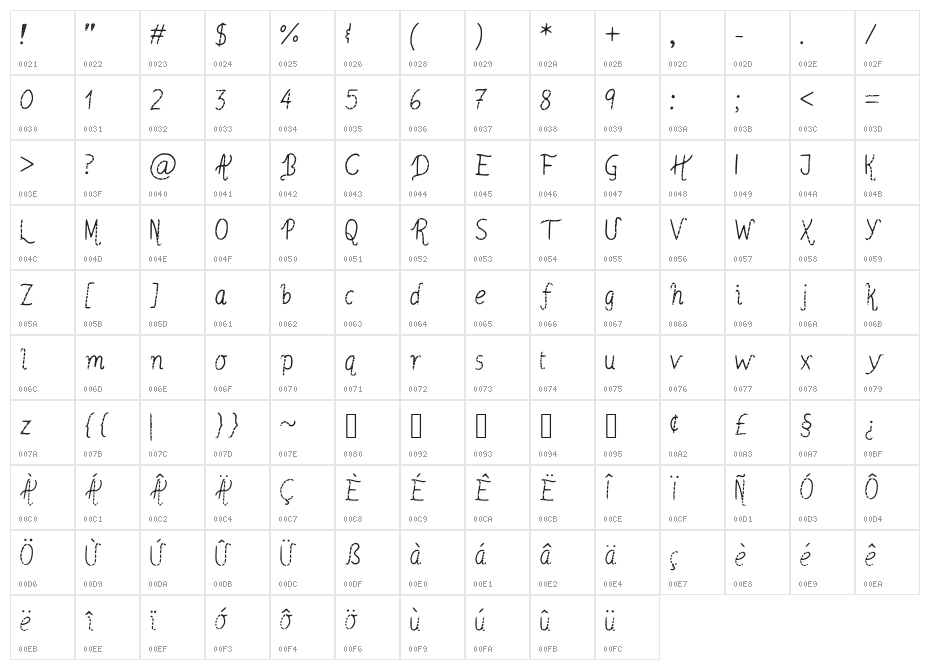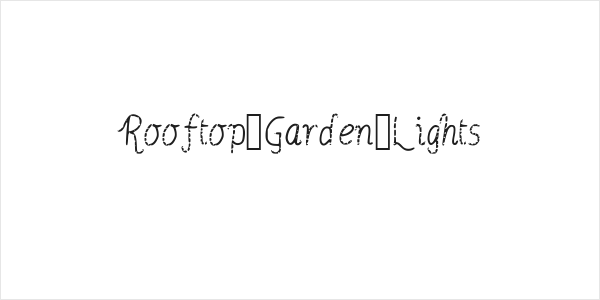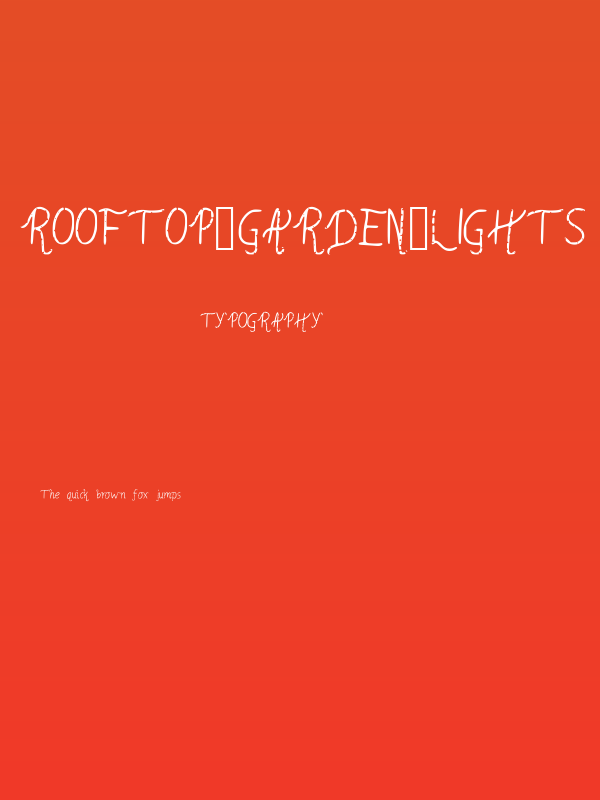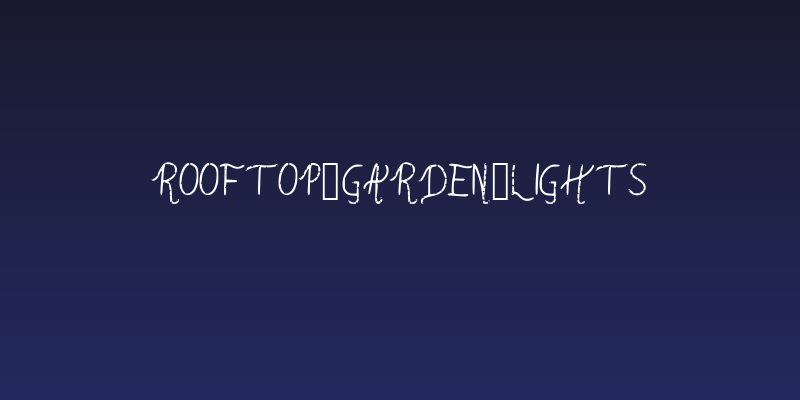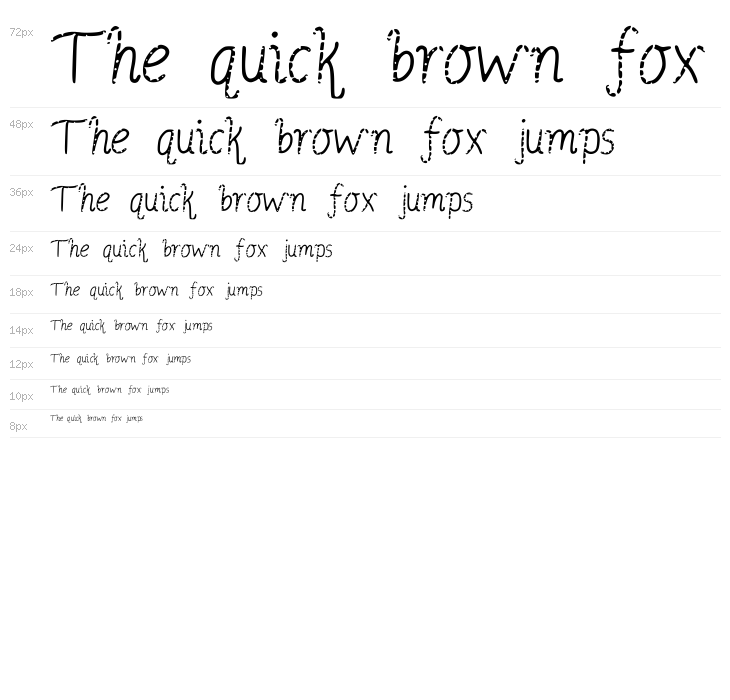
Rooftop_Garden_Lights Font
Rooftop_Garden_Lights Description
This font features a whimsical and playful design, characterized by its dotted, hand-drawn appearance. The uppercase letters are tall and slightly narrow, with a casual, flowing style that suggests movement and creativity. The lowercase letters maintain a consistent style, complementing the uppercase with their rounded forms and playful curves. Numbers and special characters follow the same dotted pattern, adding a cohesive look to the entire set. The overall design is informal and artistic, making it suitable for projects that require a touch of fun and uniqueness.
Use CaseLogos, Headlines, Creative projects
Proposed ProjectsIdeal for children's book covers, playful invitations, greeting cards, and creative branding projects.